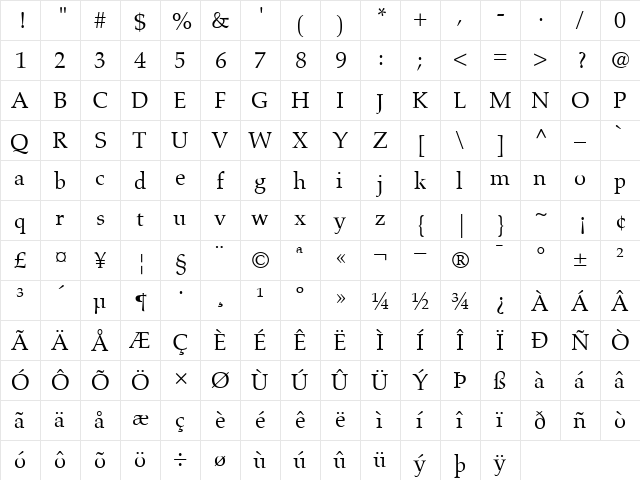
AldusRoman Roman
Design Context for AldusRoman Typeface
AldusRoman takes a measured approach to typography — its balanced proportions and neutral character make it a reliable workhorse for both digital and print work.